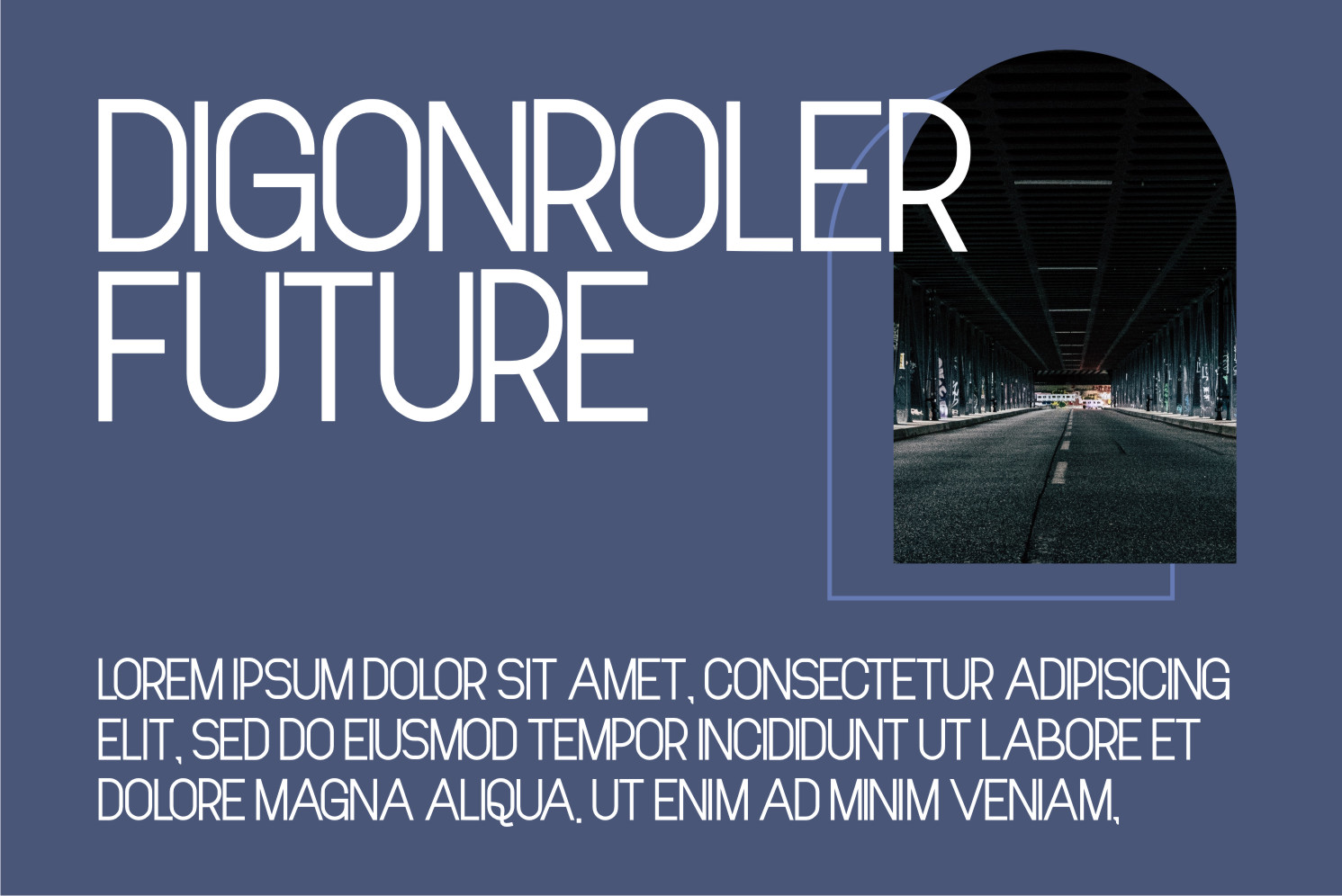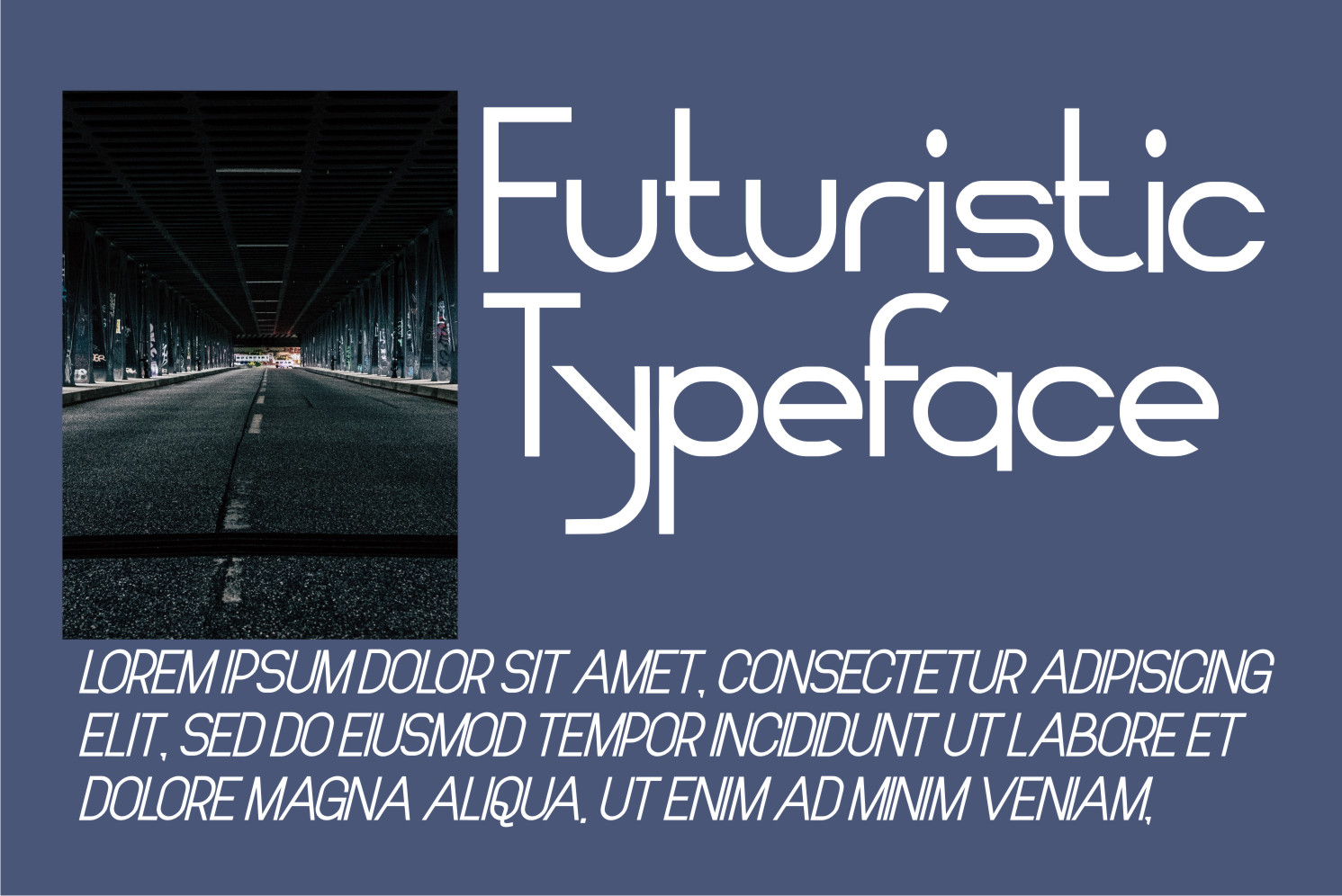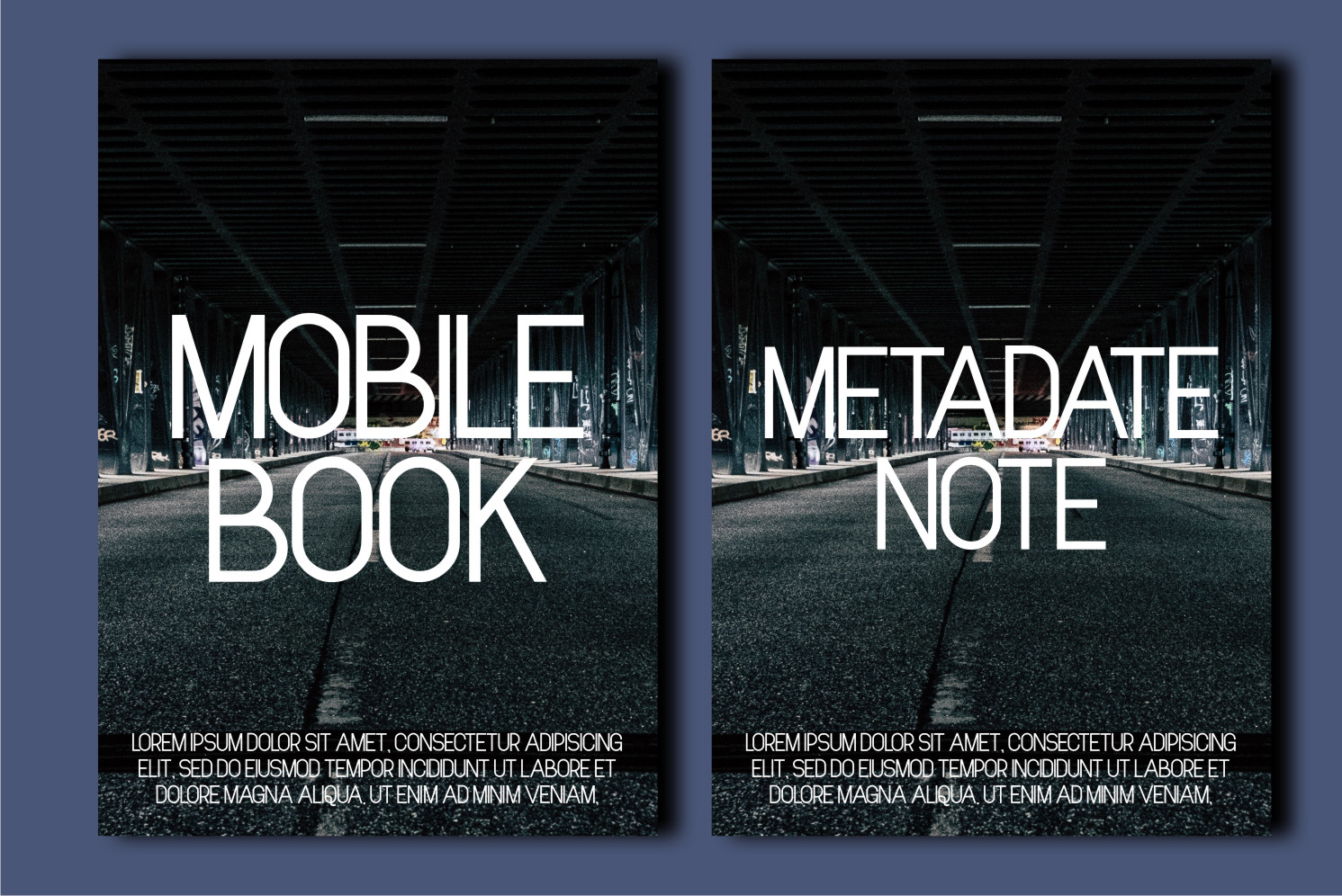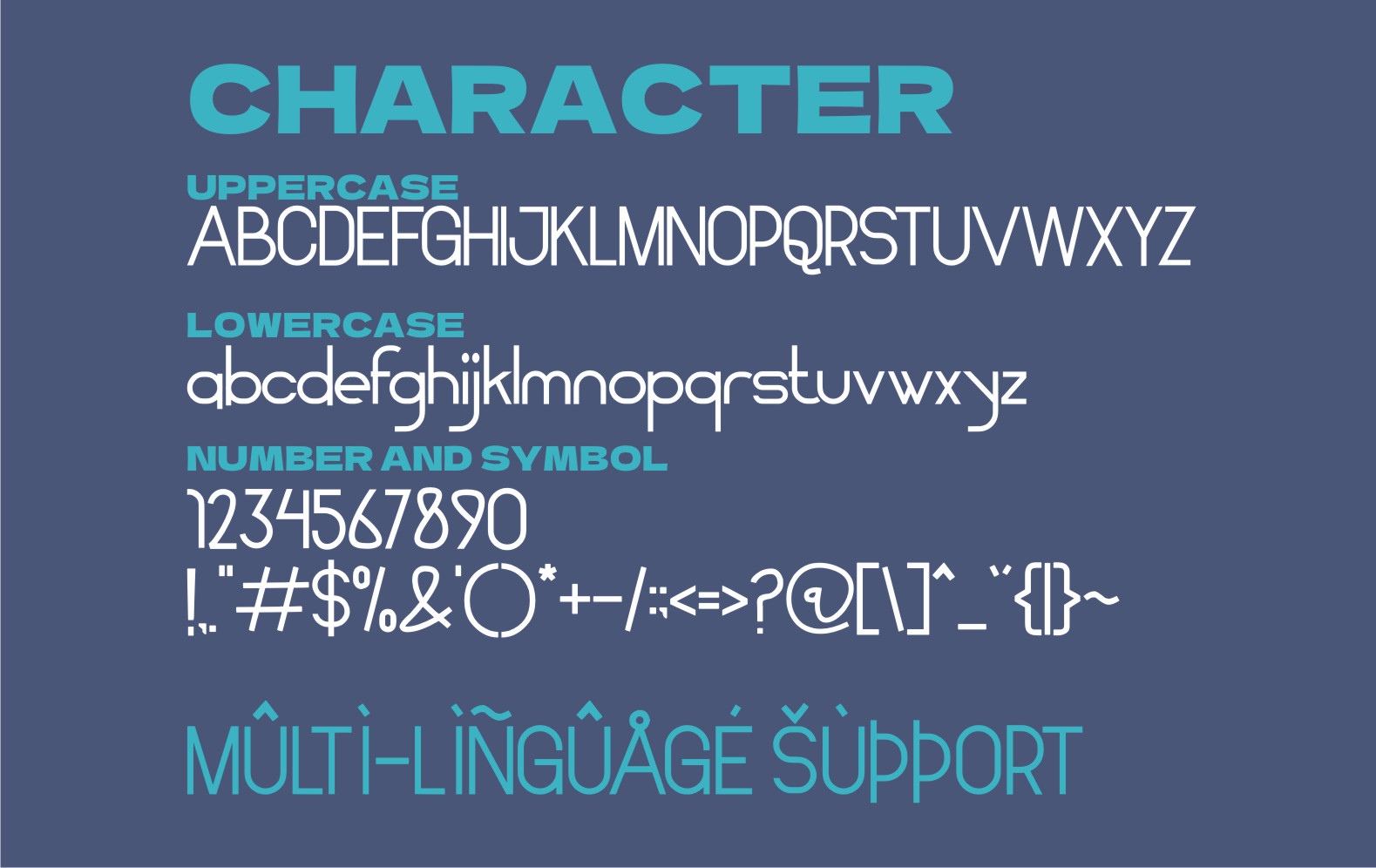
Geonomi Font
Geonomi Sans Serif Font
It’s a cool, modern and distinct sans serif font. This font is suitable for designs such as t-shirts, sportswear, logos, advertisements, clothing, and more.